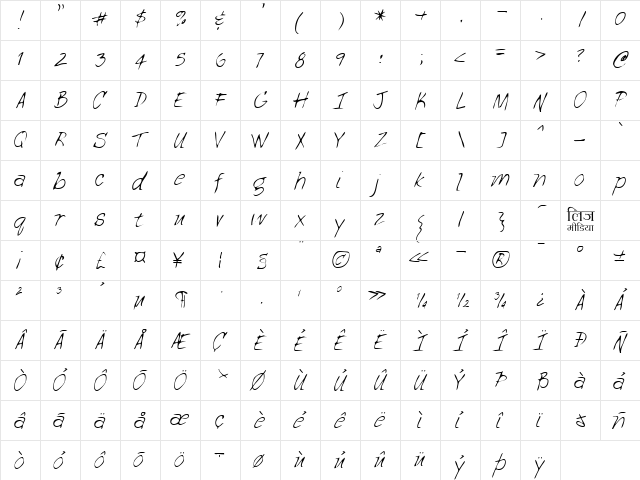
LEHN113 Regular
Design Context for LEHN113 Typeface
LEHN113 is a composed and adaptable typeface that performs quietly and consistently across a wide range of design contexts.